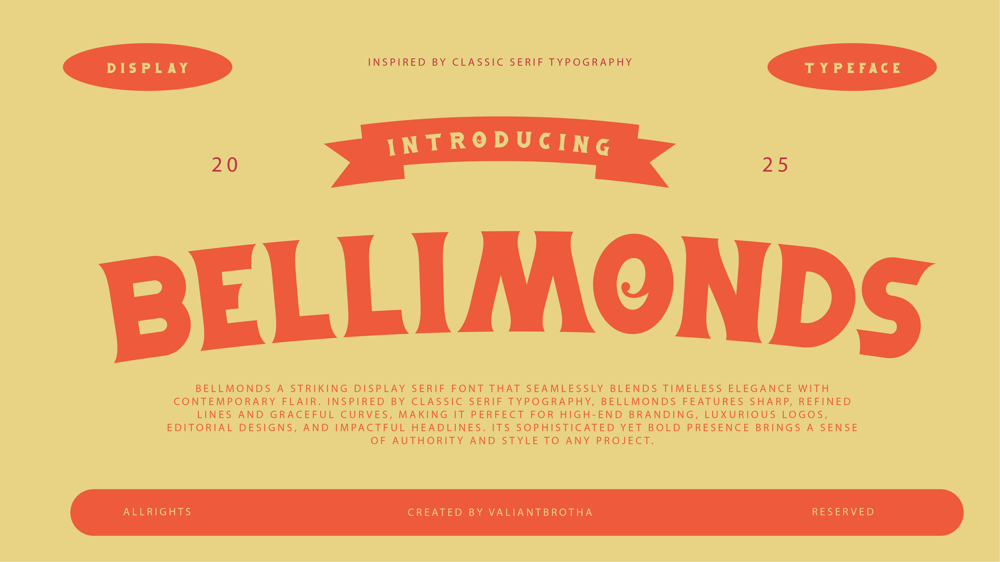
Bellimonds
Bellimonds font
Bellimonds Font Family was designed by Agus Prima and published by Valiantbrotha. Bellimonds contains 2 styles and family package options. BellImonds is a bold and captivating typeface that effortlessly blends retro and vintage charm. Inspired by classic display fonts from the mid-20th century, this font brings a touch of nostalgia with its unique, yet timeless character design.